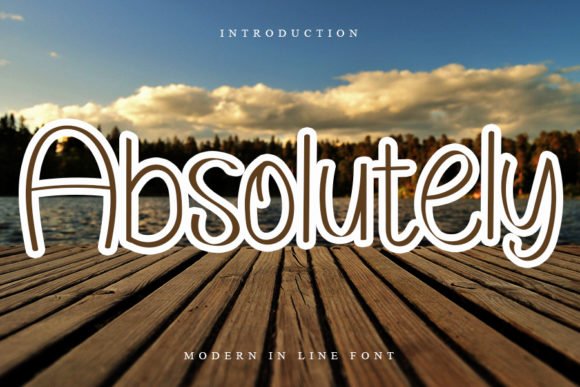
Meet Absolutely Font, a clean, versatile, and playful display font that’s perfect for adding a touch of personality to your designs. Whether you’re working on a logo, poster, or social media graphics, Absolutely Font is here to help you shine. Its simplicity and flexibility make it an ideal choice for designers who want to create visually appealing and engaging content without the hassle of complicated typography.
With Absolutely Font, you can unleash your creativity and have fun experimenting with different variations. From casual to formal, this font adapts seamlessly to your design style, making it a valuable addition to any designer’s toolkit.
Key Features of Absolutely Font
- Unique Characteristics: Absolutely Font features a unique blend of modern and classic design elements, with a wide range of ligatures and contextual alternates.
Designer Review: Absolutely Font
After diving into Absolutely Font, I have mixed feelings about this typeface. Let’s break it down.
- Unique aesthetic: Absolutely Font offers an unconventional yet intriguing look that could add a touch of personality to various designs.
- Customizable: This font family comes in multiple styles and weights, making it suitable for a wide range of applications, from headings to body text.
- Readability: Despite its bold appearance, Absolutely Font is surprisingly legible, especially when used in larger font sizes.
- Lack of consistency: Some characters appear slightly off-kilter or inconsistent in their shape, which can be distracting in longer texts.
- Difficult pairing: Due to its bold, ornate design, Absolutely Font might be challenging to pair with other fonts without looking mismatched.
- Not ideal for body text: While it works well for headings and titles, this font may not be the best choice for large blocks of text due to its busy design.
While Absolutely Font has its strengths, its limitations may deter some designers from using it as their go-to font. Its unique aesthetic and customizable options make it a great choice for projects where a bold, eye-catching look is required. However, for more subtle or extensive text-based designs, you might want to consider alternative options.
Some tips for getting the most out of Absolutely Font include using it for titles and headings, where its high contrast and readability are most effective. You can also use it for body text, especially in situations where clear and readable text is crucial, such as in presentations or documents.
Some common use cases for Absolutely Font include:
- Presentations and slides
- Documents and reports